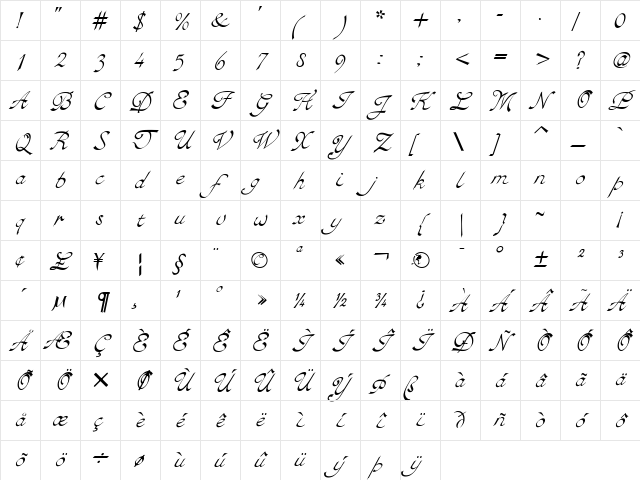
Toulouse23 Regular
Design Context for Toulouse23
Toulouse23 is a composed and adaptable typeface that performs quietly and consistently across a wide range of design contexts.